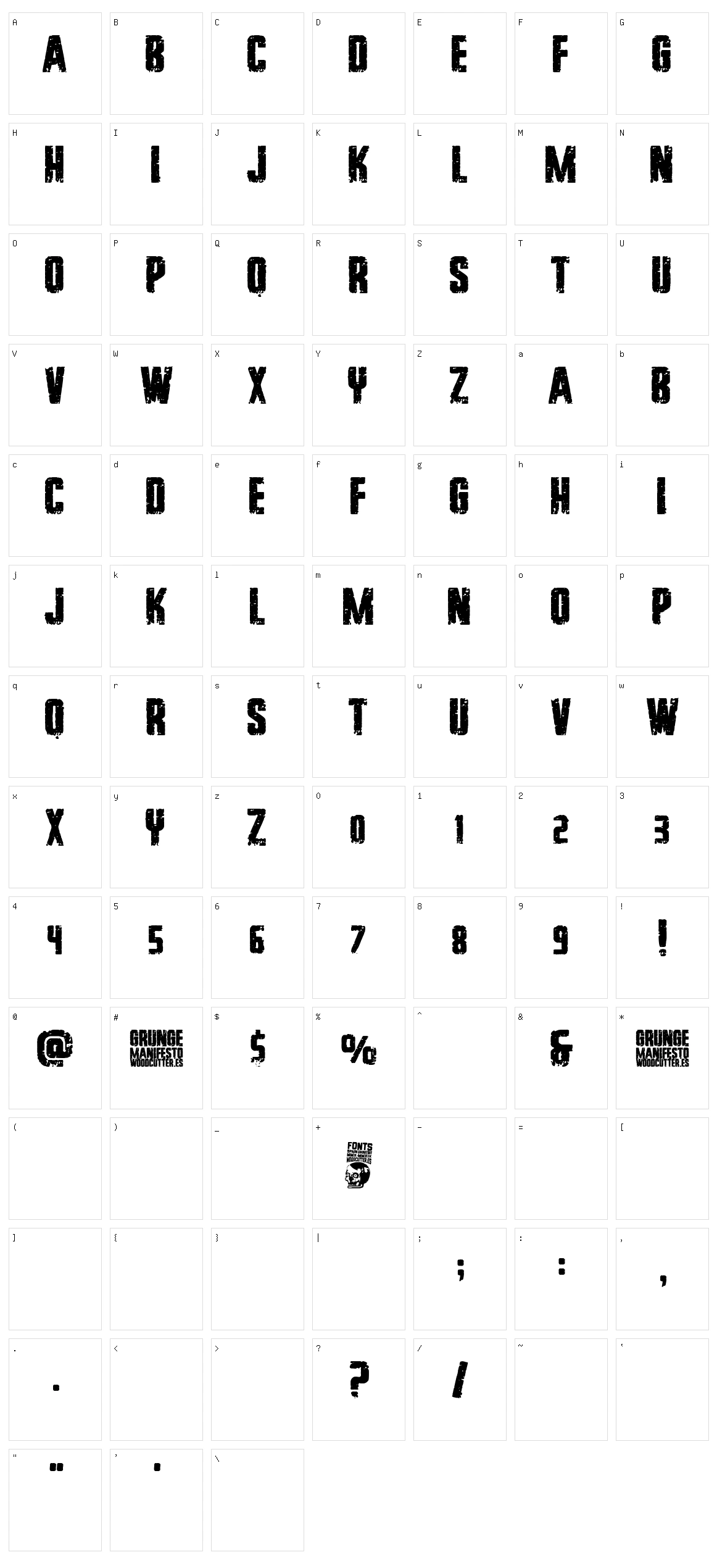
The free font Grunge Manifesto is carefully designed by Woodcutter, showcasing a thoughtful balance of creativity and usability and falls under the Eroded font style. When you download the ZIP file, it contains only 164.67 KB of font files, making it lightweight and quick to download. Please review the license details below to understand permitted usage and distribution rights. If license information is not available, we recommend using this font for personal projects only or contacting the author directly for commercial usage permissions.